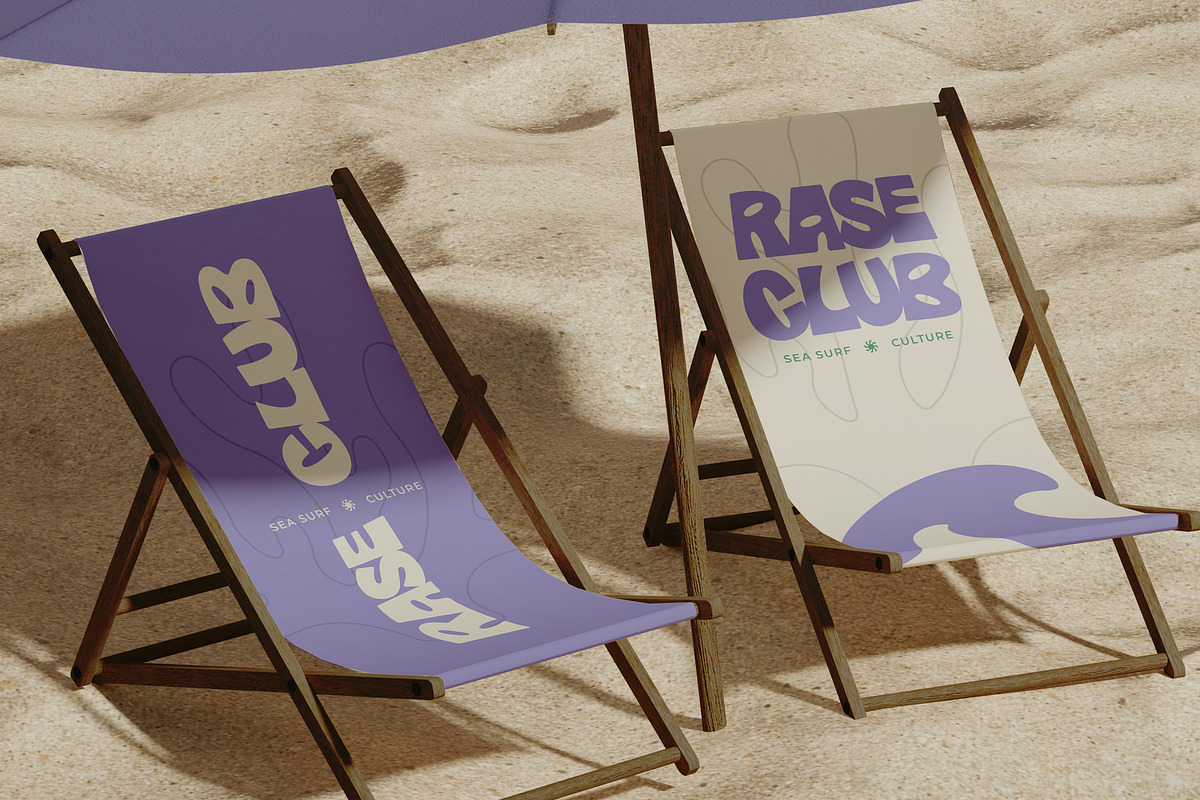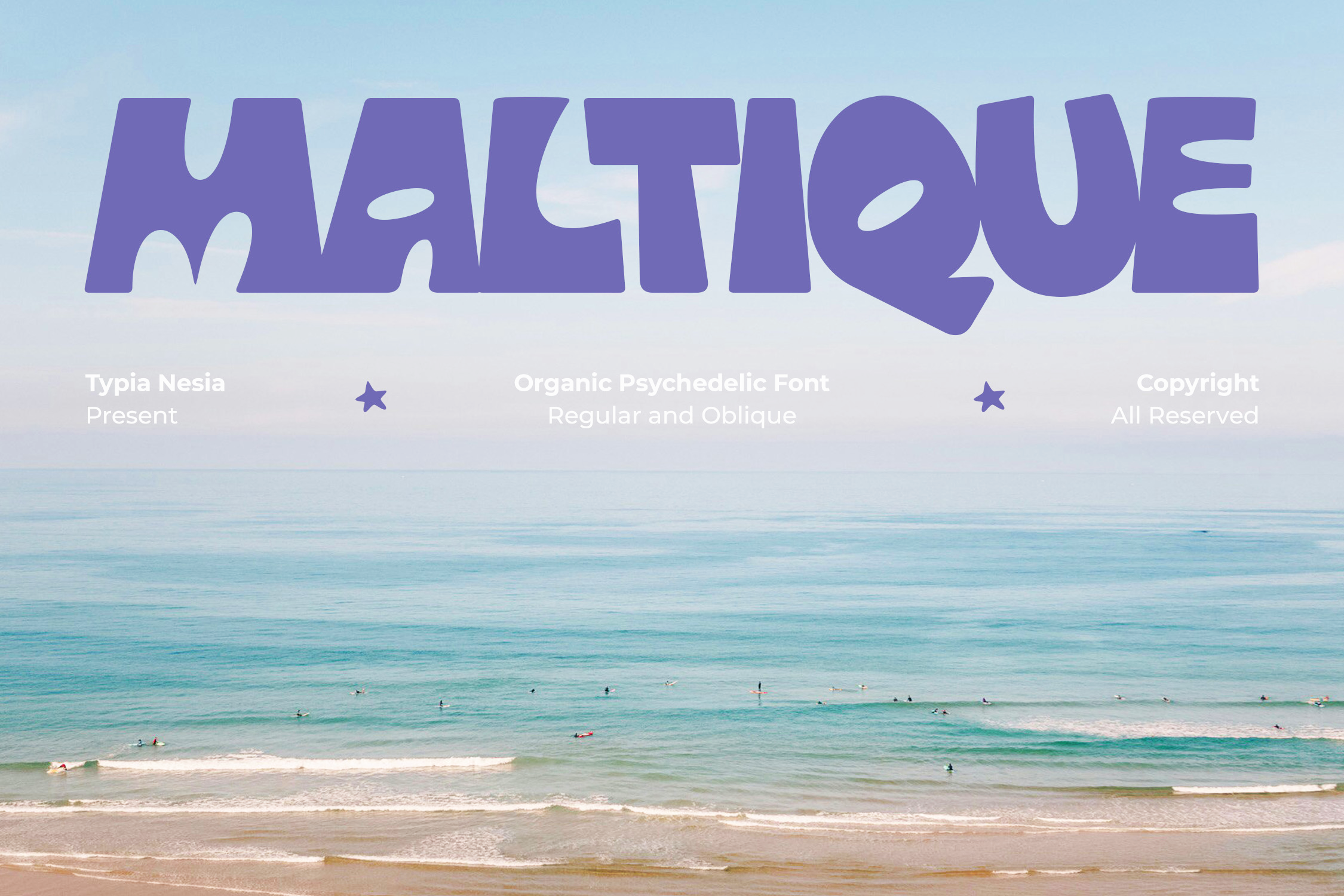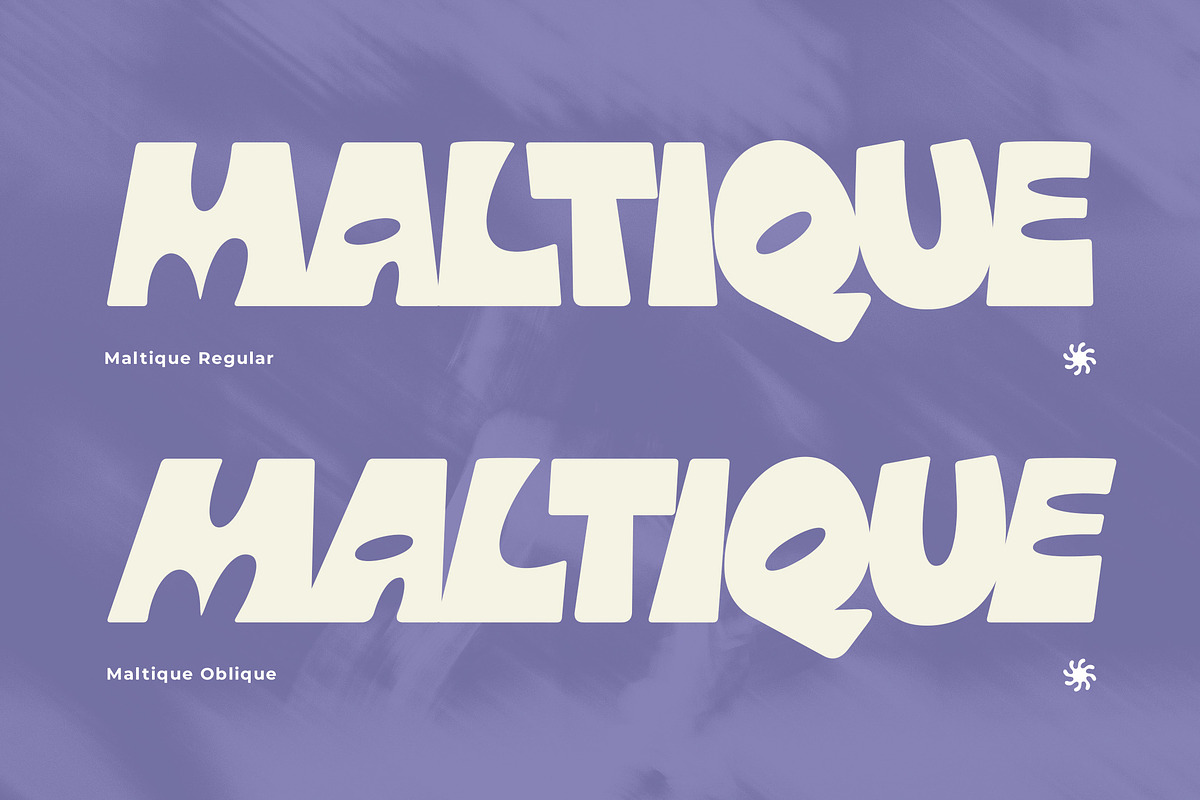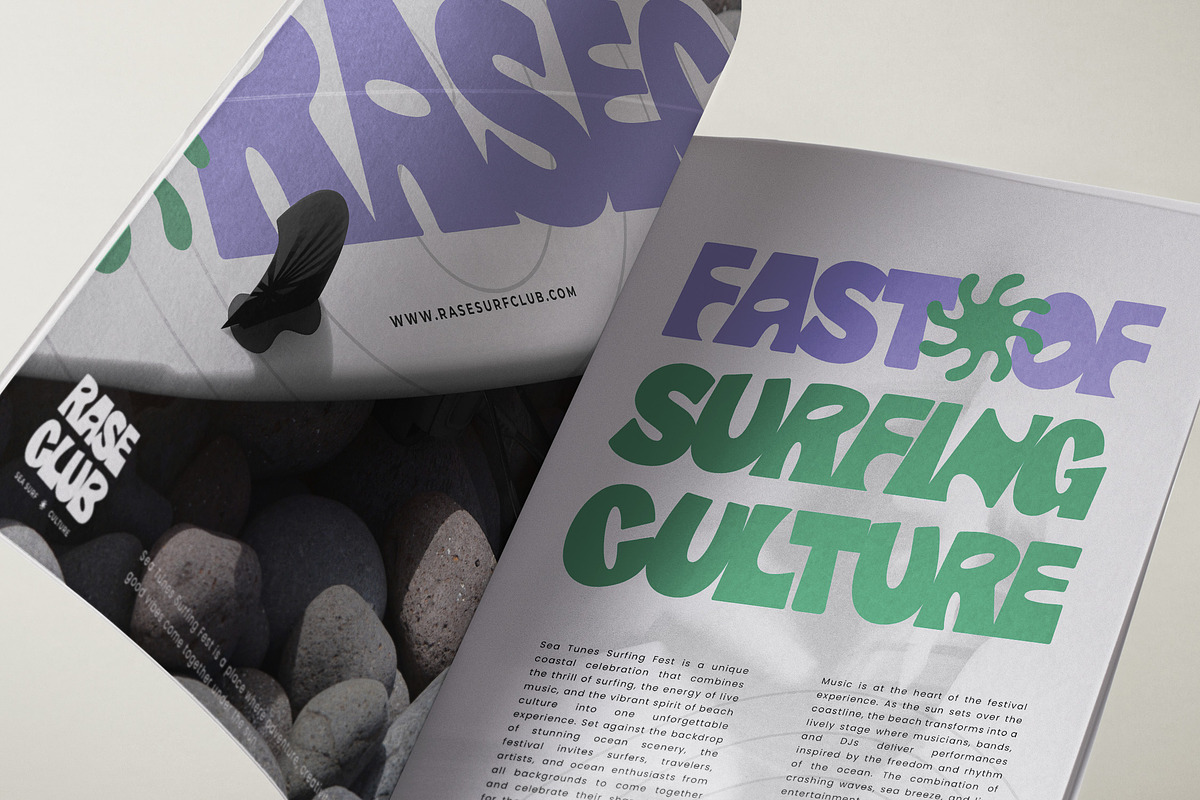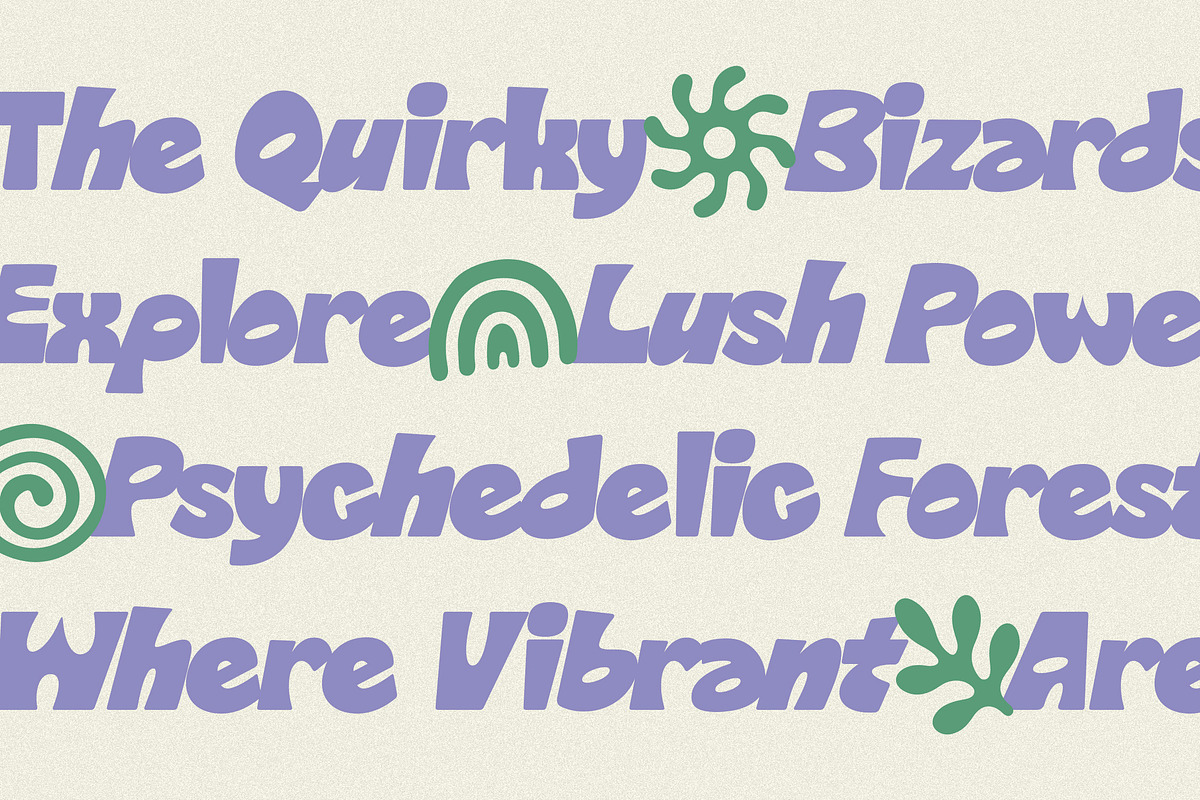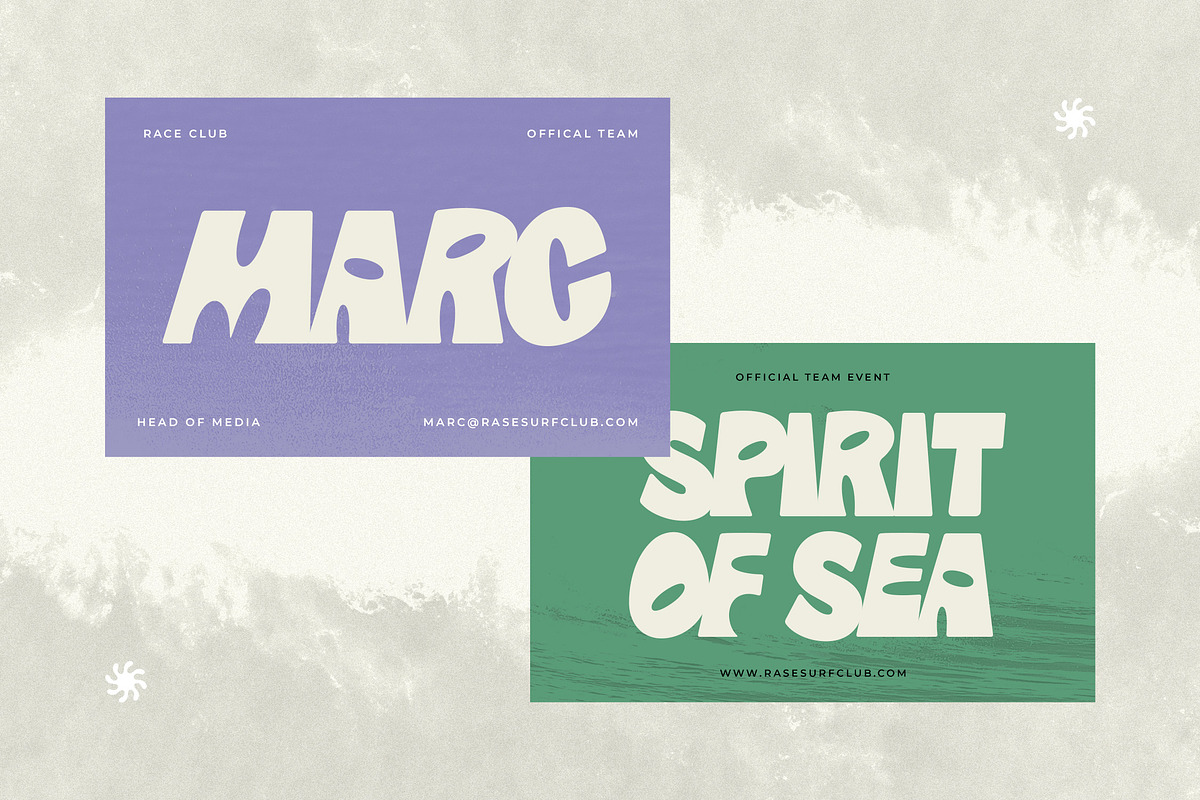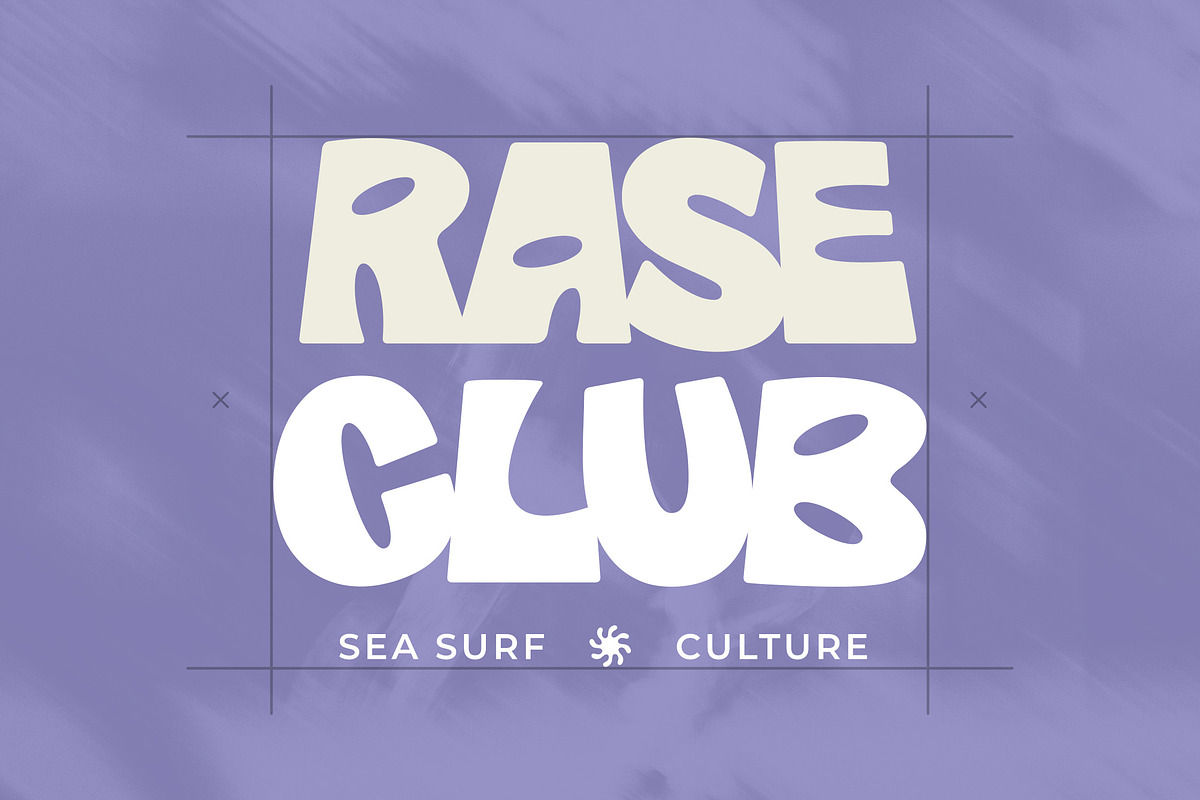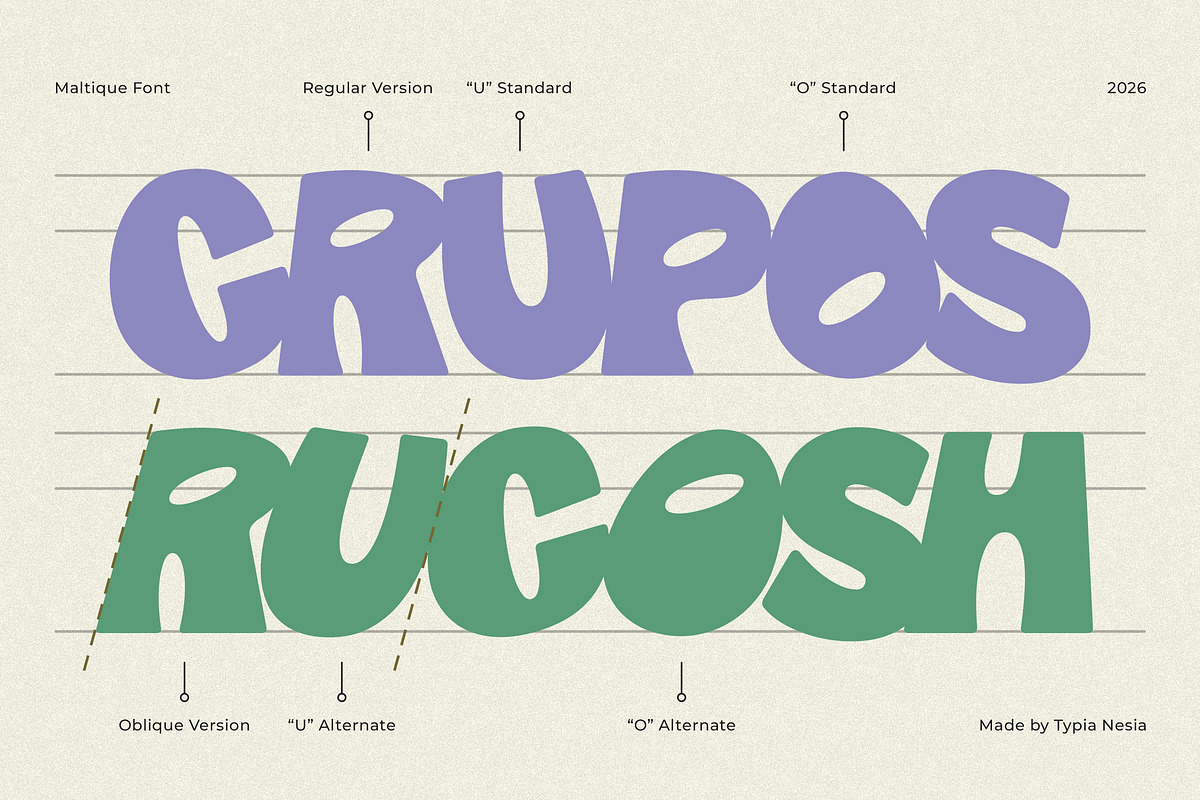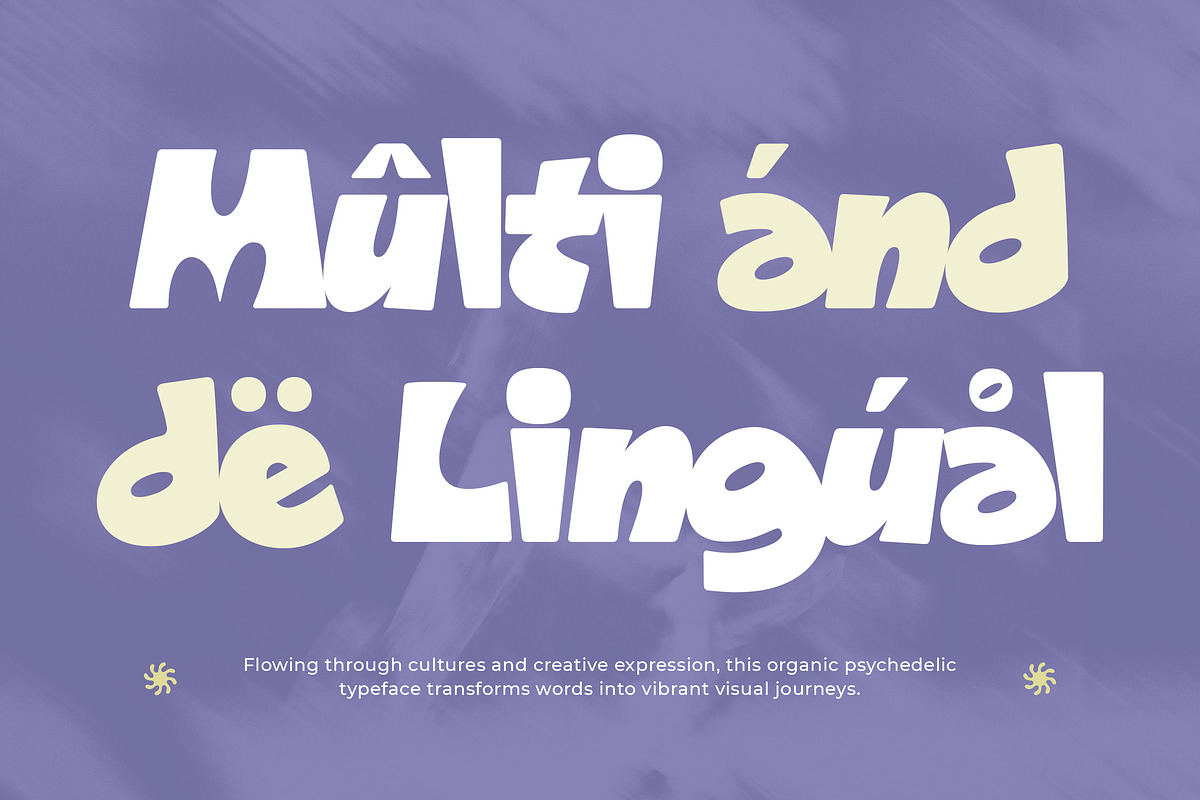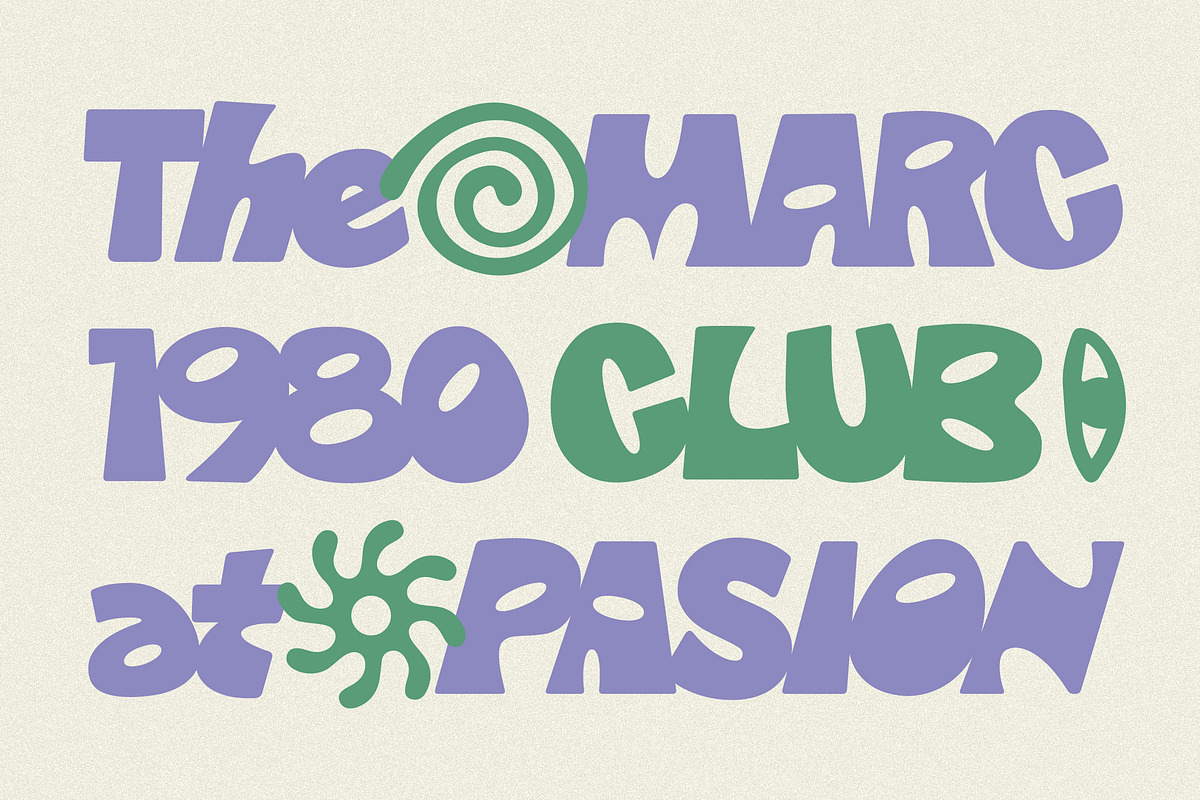
Maltique - Psychedelic Retro Font
Maltique - Organic Psychedelic Display Font for Retro Branding, Posters & Album Covers
Maltique is an organic psychedelic display typeface featuring bold fluid letterforms, soft asymmetrical curves, and a distinctive retro-inspired personality. Designed to capture the free-spirited aesthetic of the psychedelic era while maintaining a contemporary edge, it delivers expressive typography that instantly becomes the focal point of any design.
Perfect for music festival branding, album covers, concert posters, café and beverage branding, creative packaging, vintage logos, social media campaigns, editorial layouts, lifestyle brands, and artistic merchandise. Give your projects a bold retro soul with Maltique—where organic curves meet timeless psychedelic style.